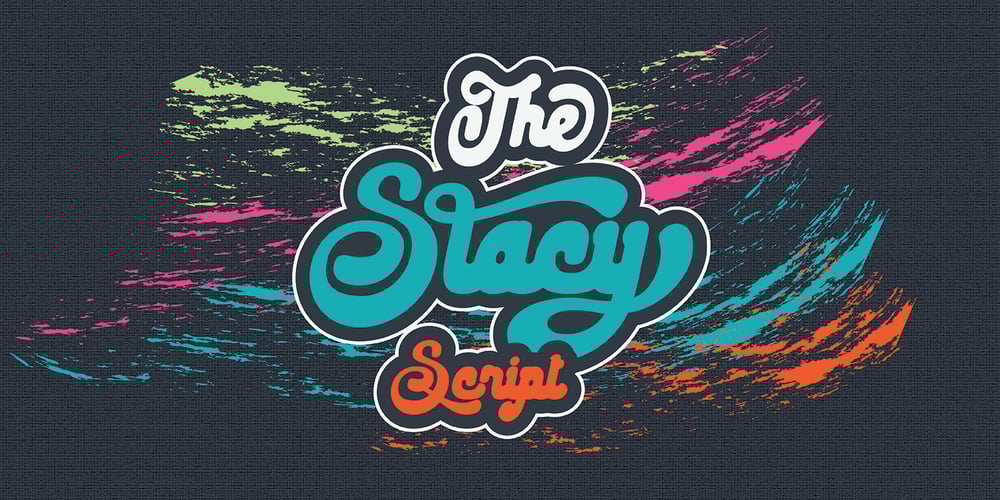
The Stacy
The Stacy font
The Stacy Font Family was designed by Riska Kurniawan and published by BlackLotus. The Stacy contains 2 styles and family package options. The Stacy is a retro script inspired font. This font has a variety of unique alternates and also has 2 styles, namely regular standard and italic.The Stacy is perfect for a wide variety of projects, and can be easily combined with a wide variety of colors.The Stacy has a bold character and soft nuances that will make a striking impression on everyone who sees it.